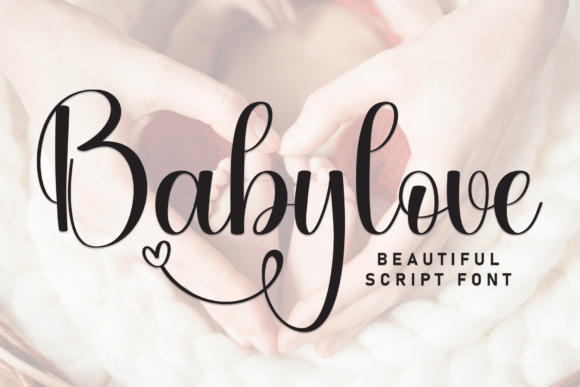
The Sweet Charm of Handwritten Fonts
Do you remember the feeling of scribbling love letters to your sweetheart, filling the pages with your most romantic thoughts and doodles? That’s the magic of handwritten fonts – a personal touch that speaks directly to the heart. And among the countless options available, one font stands out for its unique charm: the Babylove Font.
This delightful font is specifically designed to add a dash of whimsy and joy to your creative projects. Whether you’re crafting wedding invitations, designing greeting cards, or creating any other type of visual masterpiece, the Babylove Font is an excellent choice. Its playful personality and cozy allure make it an invaluable asset for designers seeking to add a custom touch to their work.
Babylove Font Key Features
- Unique Characteristics: The Babylove Font features a unique, playful design with rounded edges and subtle curves, perfect for creating a soft and child-friendly aesthetic.
Review: Babylove Font
Overall, I’m really enjoying working with the Babylove Font. It’s a beautiful, hand-drawn typeface that’s perfect for projects that need a touch of whimsy and personality.
- ✨ Unique, playful design that sets it apart from other fonts
- ✨ Great for projects targeting a younger audience or children’s products
- ✨ Available in a range of weights and styles to suit different design needs
- ⚠️ Limited legibility at smaller font sizes, making it better suited for larger headings and titles
- ⚠️ May not be the best choice for projects requiring a formal or professional tone
- ⚠️ Some characters may require additional styling or tweaking to achieve the desired look
Overall, I think Babylove Font is a great choice for projects that need a fun, playful touch. While it may have some limitations, its unique design and versatility make it a valuable addition to any designer’s toolkit.
The Babylove Font is a playful, cursive font that is perfect for:
- Baby shower invitations and decorations.
- Wedding invitations and decorations with a whimsical touch.
- Any design that requires a soft, feminine touch.
Design Projects Using Babylove Font
Project 1: Whimsical Nursery Wall Decal
Create a custom nursery wall decal with the Babylove Font to add a touch of whimsy and personality to the room.
How to use Babylove Font: Use the Babylove Font to create a custom quote or name that will be displayed prominently on the wall. You can use a combination of uppercase and lowercase letters to create a playful and eye-catching design.